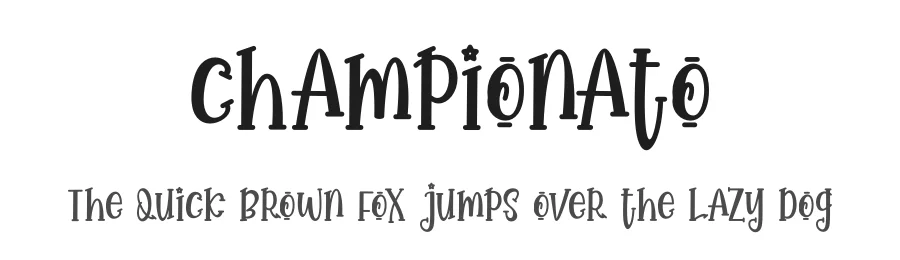
About Chavitaly Font
Chavitaly Specifications
| Font Family | Chavitaly |
| Full Name | Chavitaly |
| PostScript Name | Chavitaly |
| Designer | Lia Ari Wijayanti |
Chavitaly Font is a decorative font that shines as a display or heading face. Pair it with a clean sans-serif or serif font for body text β the contrast creates a clear hierarchy while the two styles stay balanced and easy to read.